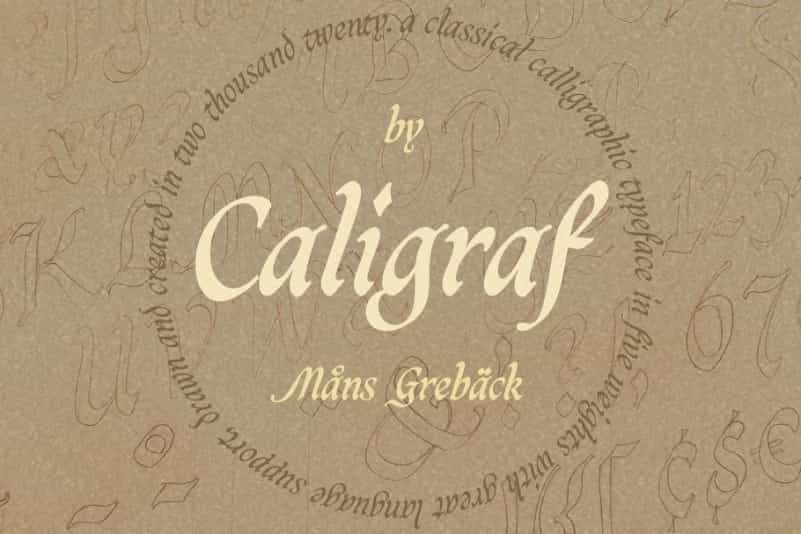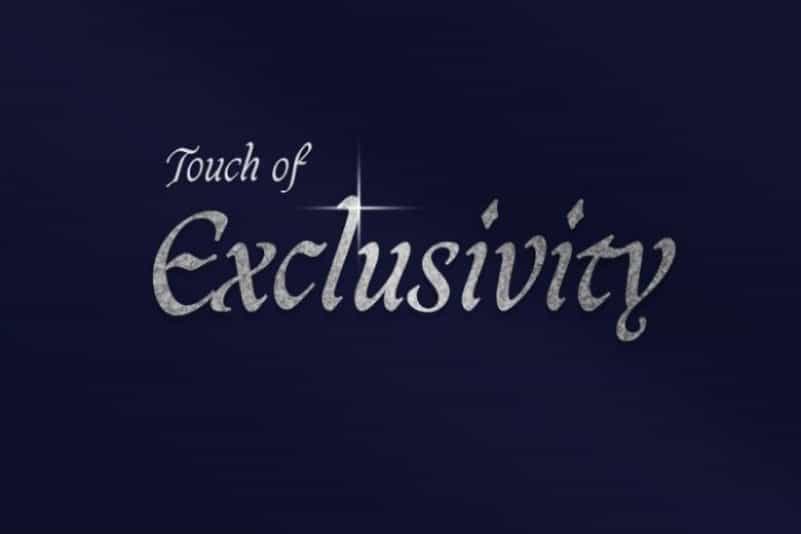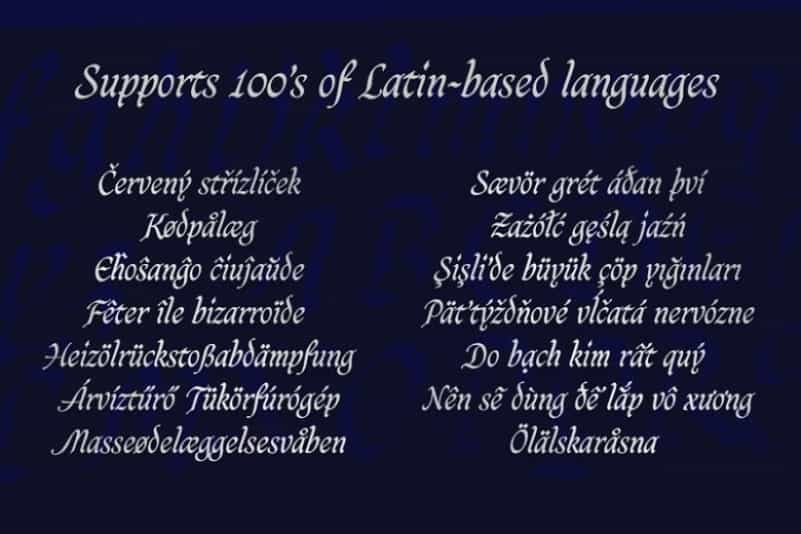
Discover Caligraf Classical Calligraphy Script Font, part of the Calligraphy Vintage collection—a versatile and unique font perfect for adding a personal touch to your projects. Download it for free and enjoy crafting designs with style, from invitations to social media posts. This font is available exclusively for personal use, giving you the freedom to create without limits. Unlock your creativity with Caligraf Classical Calligraphy Script Font today!
You can also use it for your business, to design book covers, create stationery and so on. Caligraf is an ever-lasting calligraphy script font designed by Måns Grebäck in the years 2019-2020. This font reflects a combination of handwriting, which has a rather modern and edgy look to it. The angle and the weight distribution of the object convey the idea of struggle and advancing.